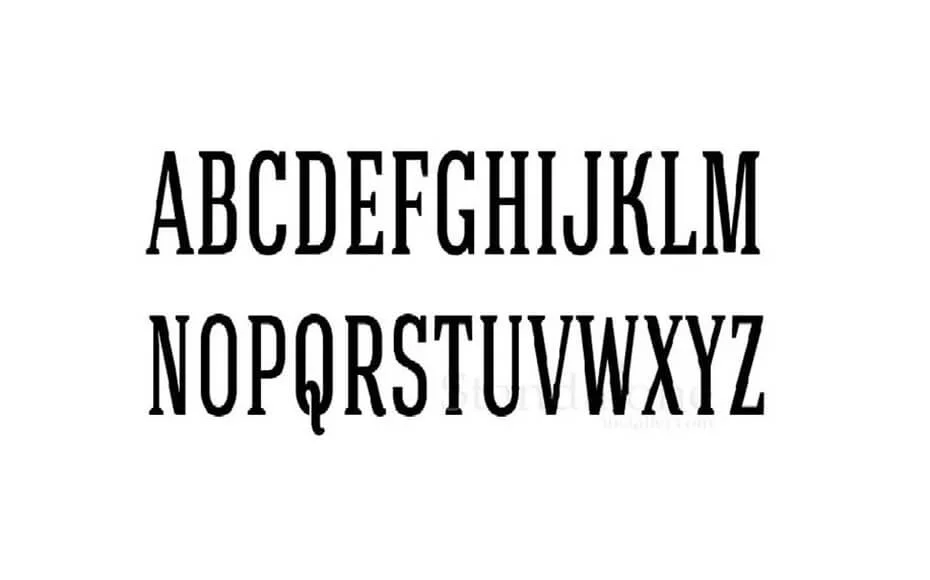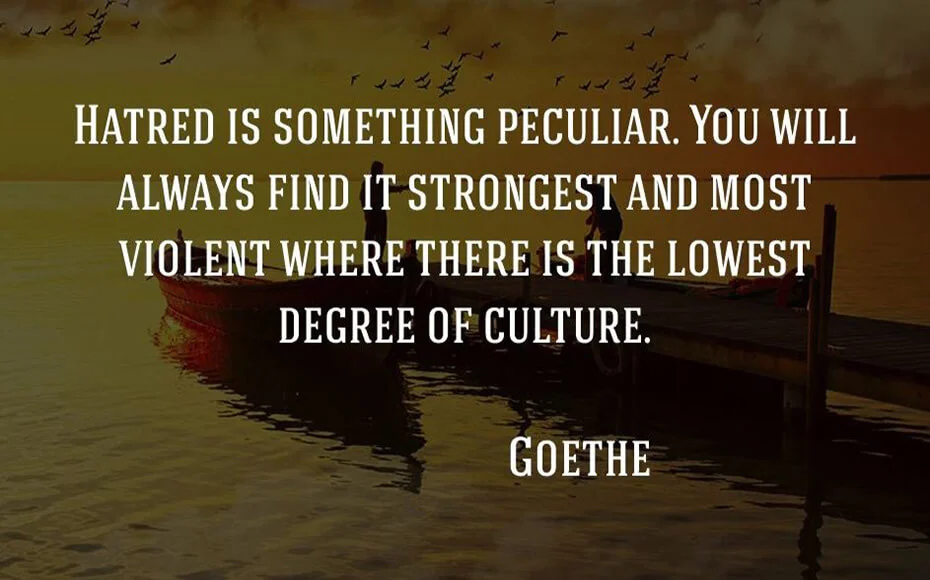
We are glad to introduce a new font called Hagin Font. It is an elegant serif typeface that has height. This one is a particularly strong candidate for eye-catching display type.
And created by Miroslav Bekyarov for Fontfabric. Thus, the designer has kept advanced text shapes and deep features that make it one of the best typefaces ever.
Because of its serif corners, this font can easily pair with others. And to give designs a professional look, it will work equally well with other legendary fonts.
All characters add this old-school font master to clever flair. Let’s see its structure in the images that we have included in this post.
It works great for designing logos, movie posters, banner ads, video titles, product designs, book covers, book content, website content, game development, CV templates, watermarks, social media posters, print-on clothes, as well as Eczar Font.
It is available in two weights including thin and medium. Both of these weights must have OpenType and TrueType features, with approximately 200 glyphs.